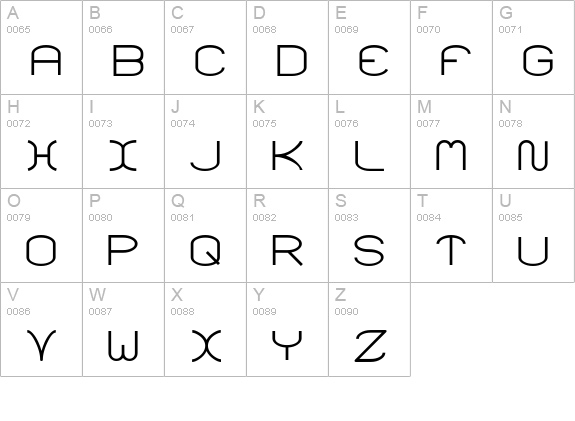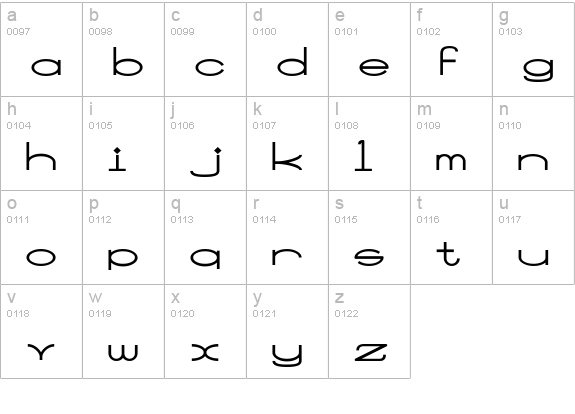
Santa Monica MF is a stunning modern font that effortlessly combines elegance with a touch of sophistication. Its sleek and stylish design makes it perfect for a wide range of projects, from branding to editorial design. The clean lines and subtle curves of Santa Monica MF give it a timeless appeal that is sure to elevate any creative work. What makes Santa Monica MF even more appealing is that it is available for free download at FontsMarket.com. This means that you can easily add this beautiful font to your collection without any cost. Whether you are a designer looking to enhance your projects or simply a font enthusiast, Santa Monica MF is a must-have addition to your typography toolkit. Download it now and let your creativity soar with this exquisite and versatile font.